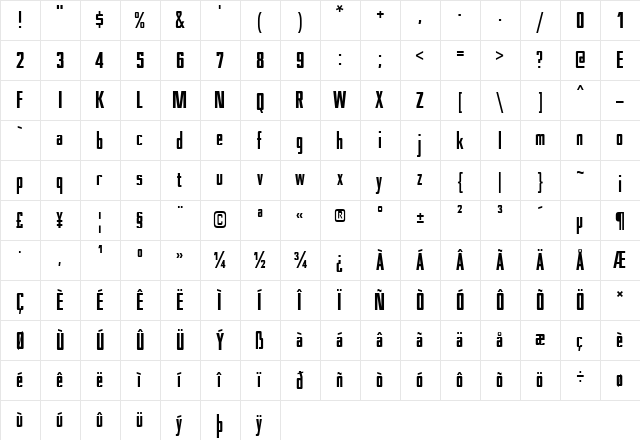
Nesobrite Condensed Black
Design Context for Nesobrite Typeface
Nesobrite takes a measured approach to typography — its balanced proportions and neutral character make it a reliable workhorse for both digital and print work. The condensed width makes it efficient for tight spaces without sacrificing legibility.